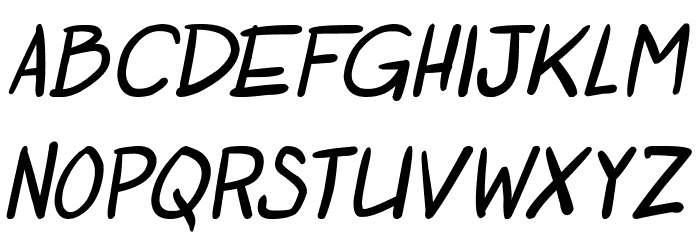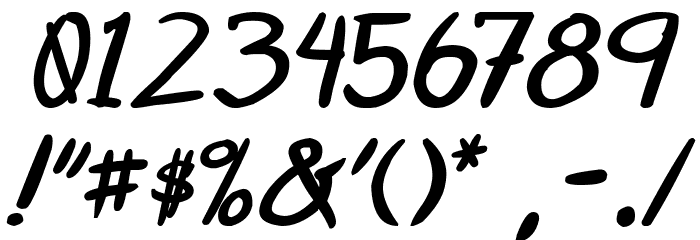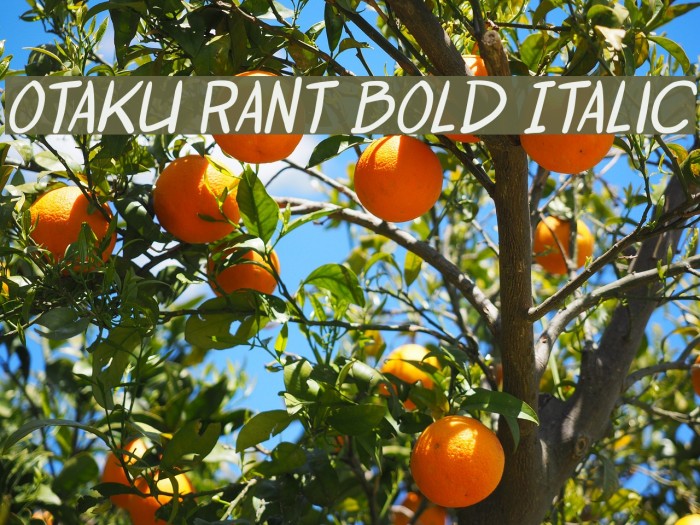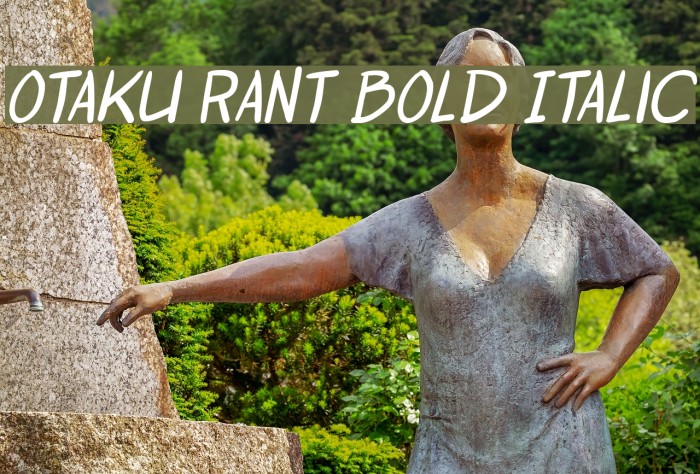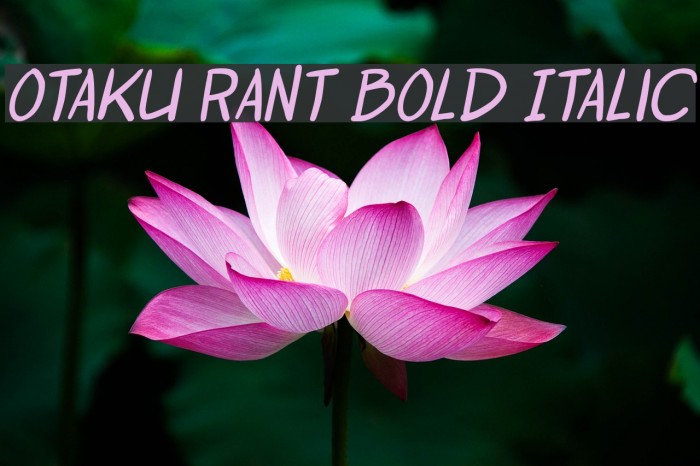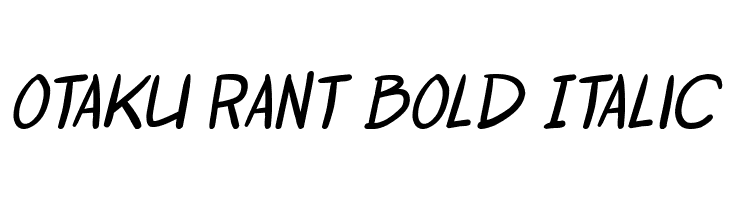
Otaku Rant Bold Italic Font
This font features a bold and italicized style with a handwritten appearance, characterized by its dynamic and energetic strokes. The letters are slightly slanted, giving a sense of motion and fluidity. The uppercase and lowercase letters maintain a consistent style, with rounded edges and a playful, informal aesthetic. The numbers and special characters follow the same design principles, ensuring uniformity across all glyphs. This font is suitable for projects that require a casual and lively touch, making it ideal for creative and artistic applications.
A bold, italic, handwritten font with a playful and dynamic style.
- Proposed Projects: Ideal for comic books, posters, greeting cards, and informal branding projects.
- Use Case: Headlines, Logos, Informal Text